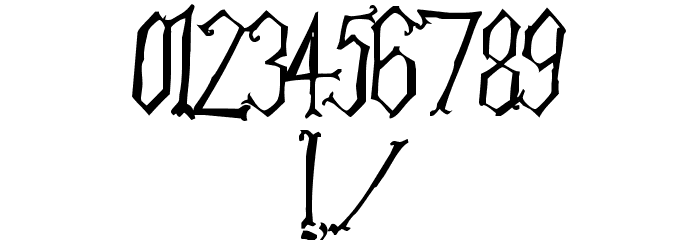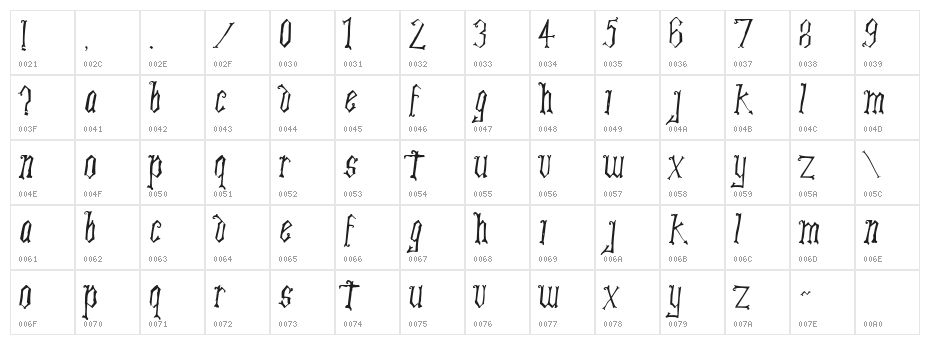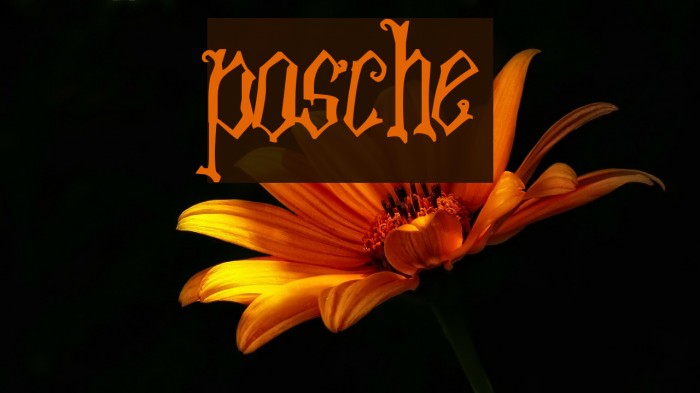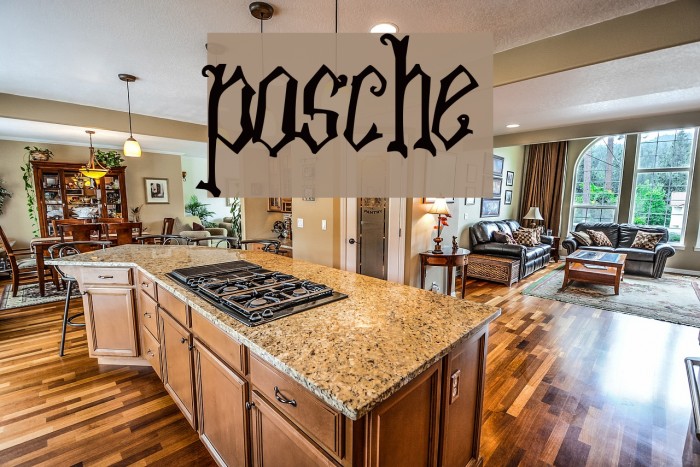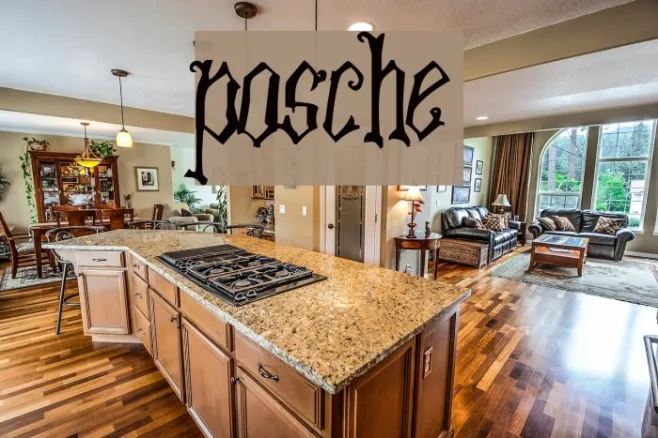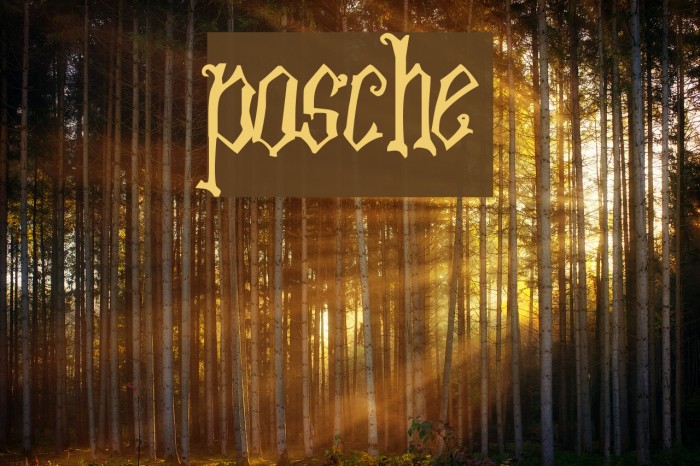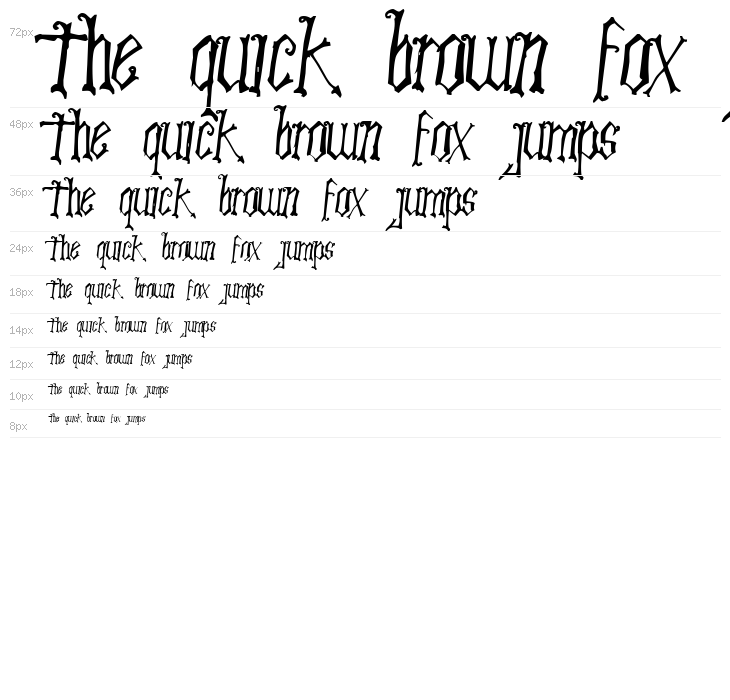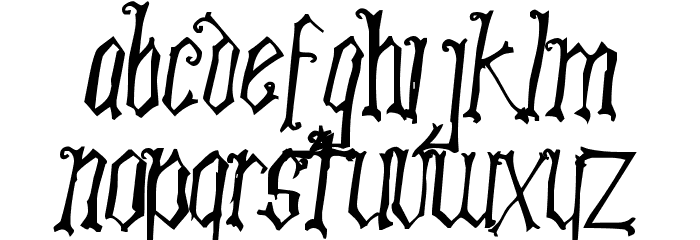
Posche Font
Posche Description
This font features a distinct Gothic style, characterized by its sharp, angular lines and ornate detailing. The letters have a medieval, calligraphic appearance, with exaggerated serifs and decorative elements that give it a historical and artistic flair. The uppercase and lowercase letters maintain a consistent style, with a strong emphasis on vertical strokes and pointed edges. The numerals and special characters follow the same design principles, ensuring a cohesive look across all glyphs. This font is ideal for projects that require a dramatic and vintage aesthetic, such as historical documents, fantasy-themed designs, or branding that seeks to evoke a sense of tradition and elegance.
| Proposed Projects | Perfect for historical documents, fantasy-themed designs, branding, and artistic projects seeking a traditional and elegant look. |